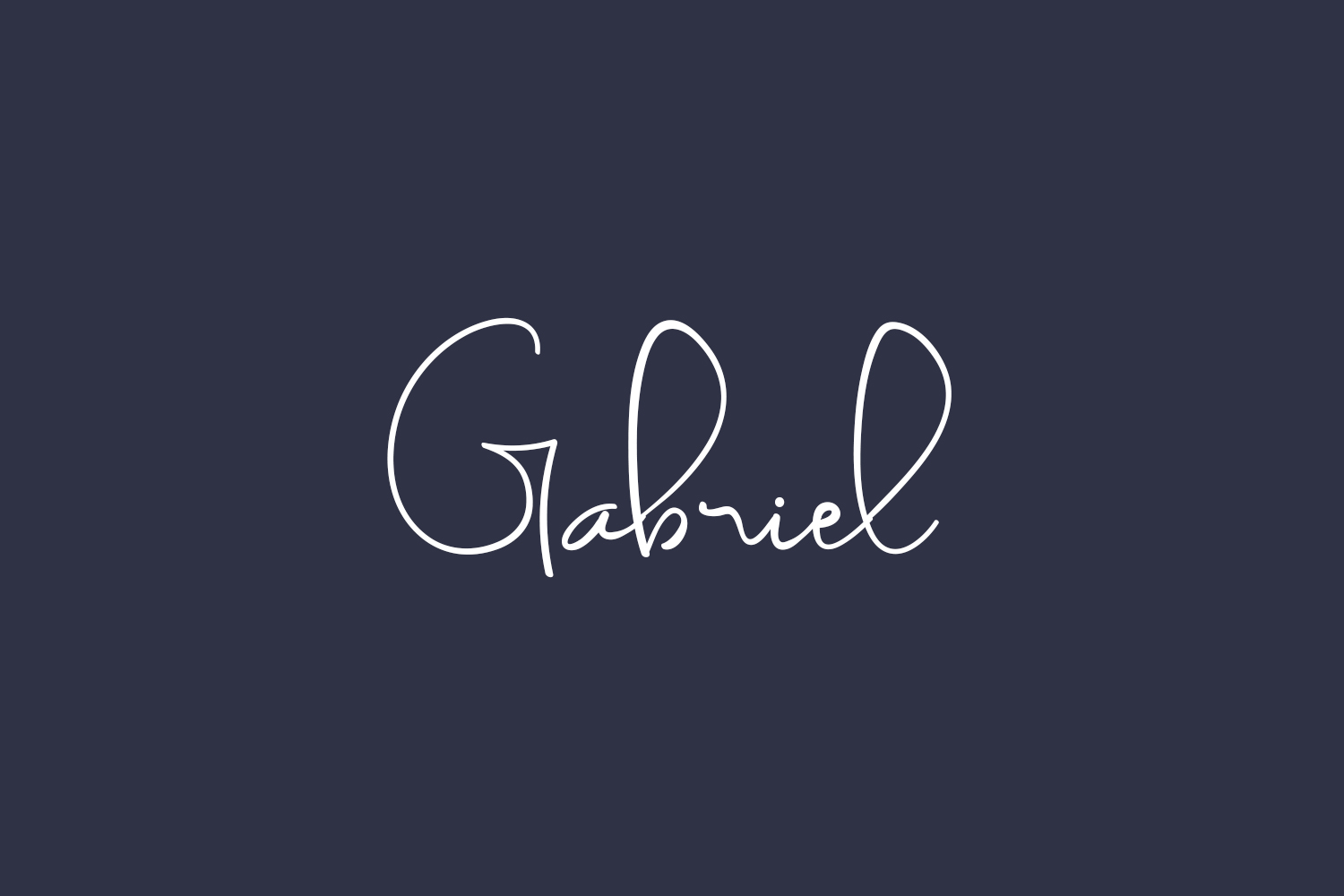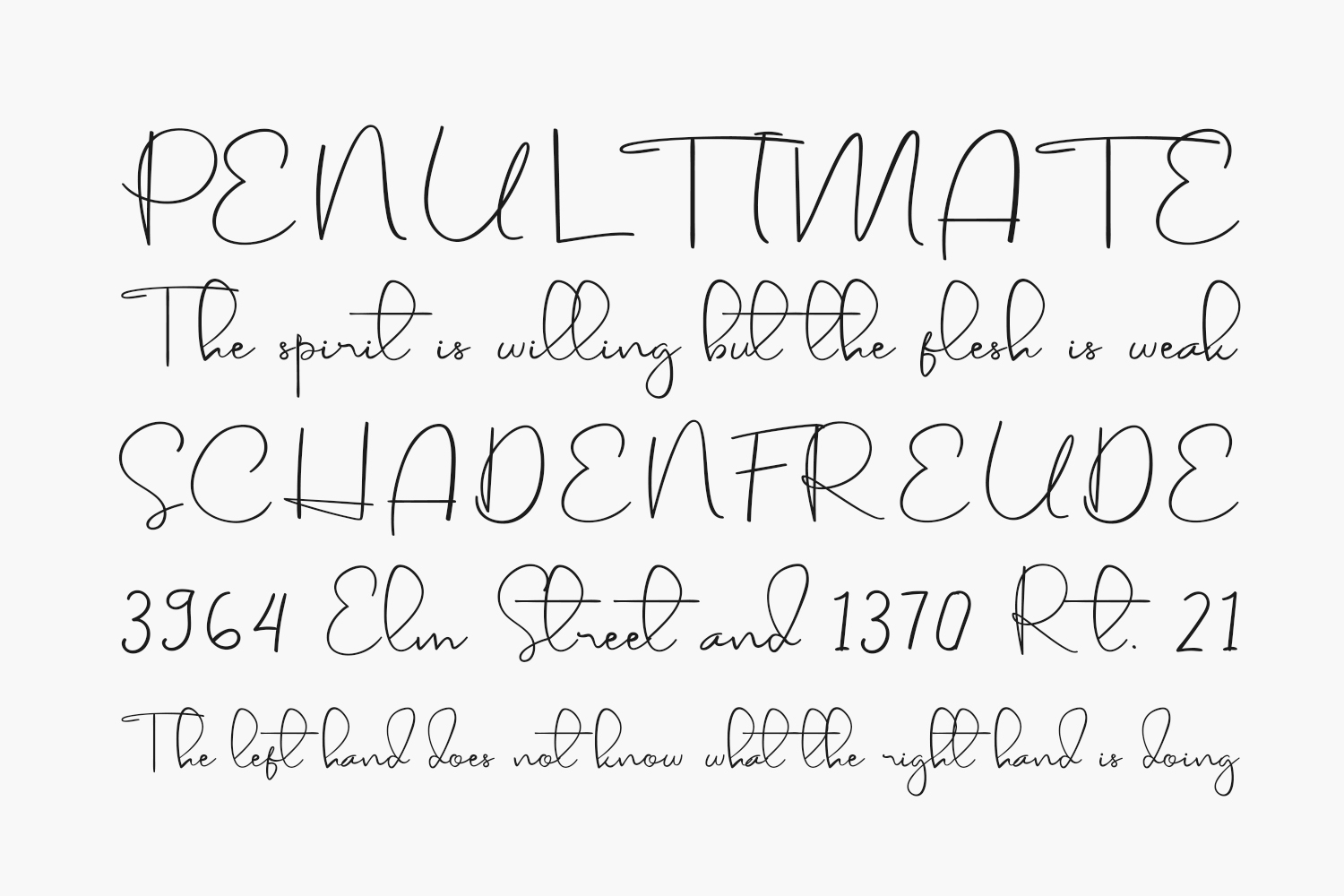
Gabriel Free Font is a fashionable script font. This font is neatly crafted and highly detailed. Whatever the topic, this font will be a wonderful asset to your font library, as it has the potential to enhance any creation. Gabriel Free Font was designed by Erik Studio and is free for personal use only. Please purchase the full version for commercial use.